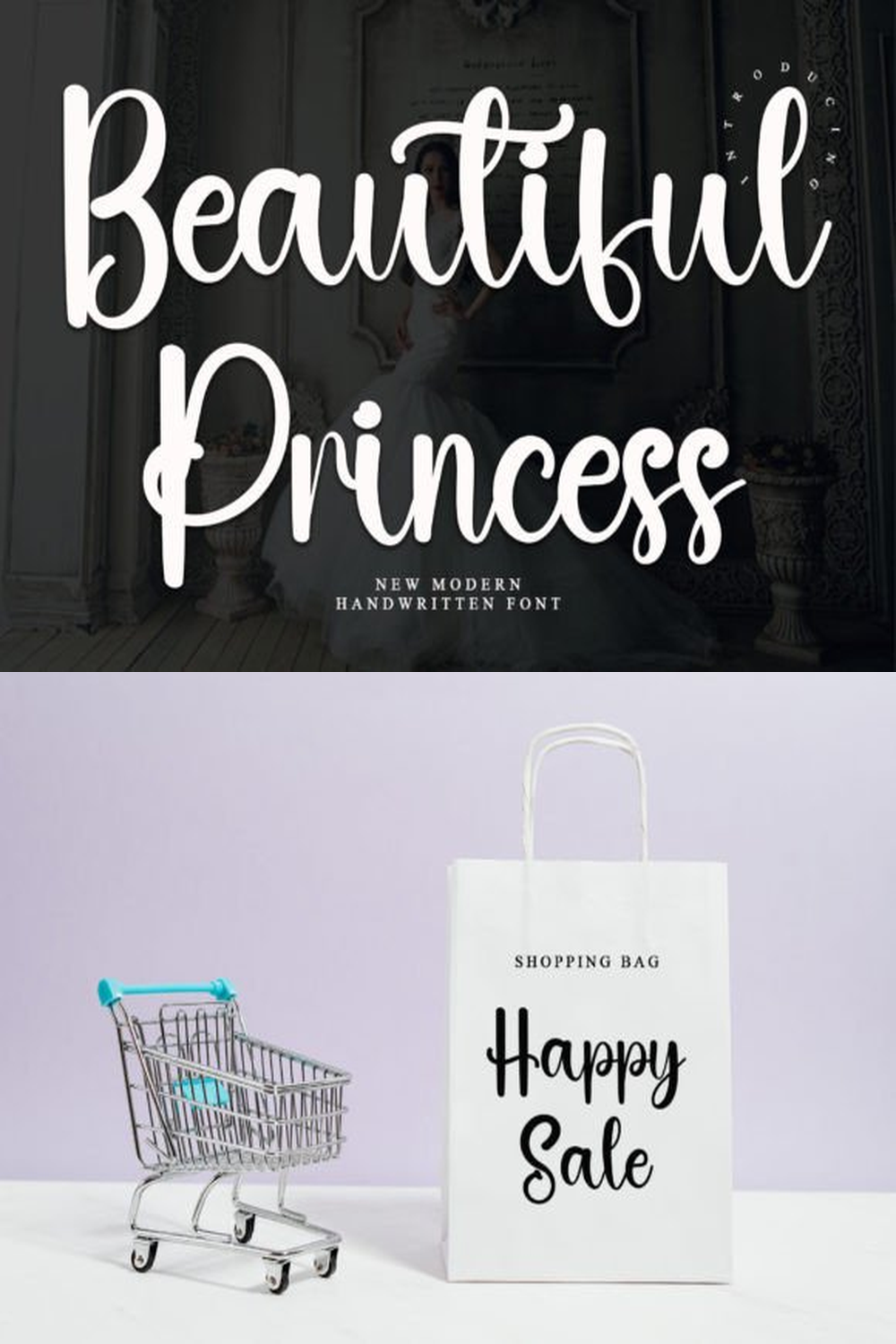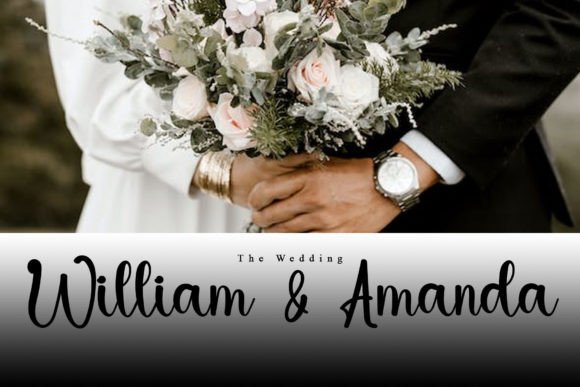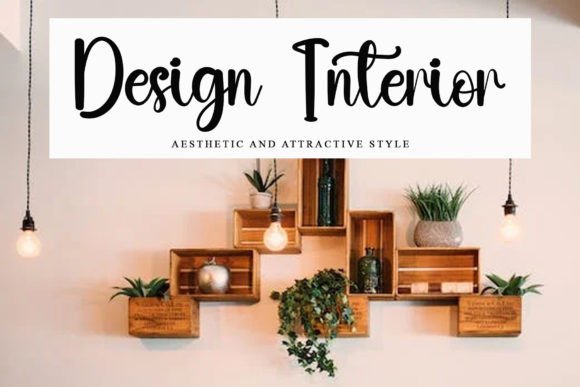
Beautiful Princess Font
About the Beautiful Princess Font
Let us introduce you to Beautiful Princess Font, where timeless design meets modern craftsmanship. Beautiful Princess Is a beautiful and attractive font. Fonts created with a soft touch, unique and distinctive from a stroke, have a good meaning and meaning for the future. Has many characters that can be used for design needs, handicrafts, and many more interesting designs.